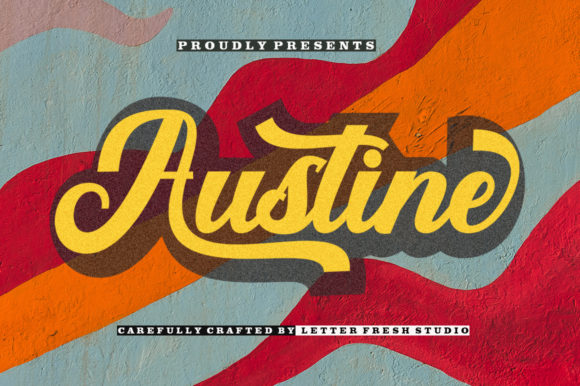
Unleash the charm of Austine Font, a retro handwritten masterpiece crafted by the visionary minds at LetterFreshStudio. Experience the allure of its bold strokes, dancing across your designs with an irresistible rhythm. Austine is not just a font; it's a gateway to a bygone era, a time when elegance and nostalgia intertwined.
With Austine Font, transform your wedding banners into breathtaking works of art. Its whimsical curves and playful personality will captivate your audience, leaving them in awe of your impeccable taste. Imagine the sheer delight as your guests marvel at the enchanting invitations adorned with Austine's timeless beauty. Each letter, a stroke of brilliance, will whisper tales of love and joy, setting the perfect tone for your special day.
But Austine Font's allure extends far beyond wedding banners. Its versatility knows no bounds. Unleash your creativity and let Austine's charm infuse life into your social media posts, branding materials, and even personal projects. Its unique character will make your designs stand out from the crowd, leaving a lasting impression on all who encounter them.
Austine Font is more than just a collection of letters; it's an expression of artistry, a testament to the power of nostalgia. Its intricate details and playful spirit will ignite your imagination, transforming your designs into captivating masterpieces. Embrace the allure of Austine Font and let its magic elevate your creative vision to new heights.